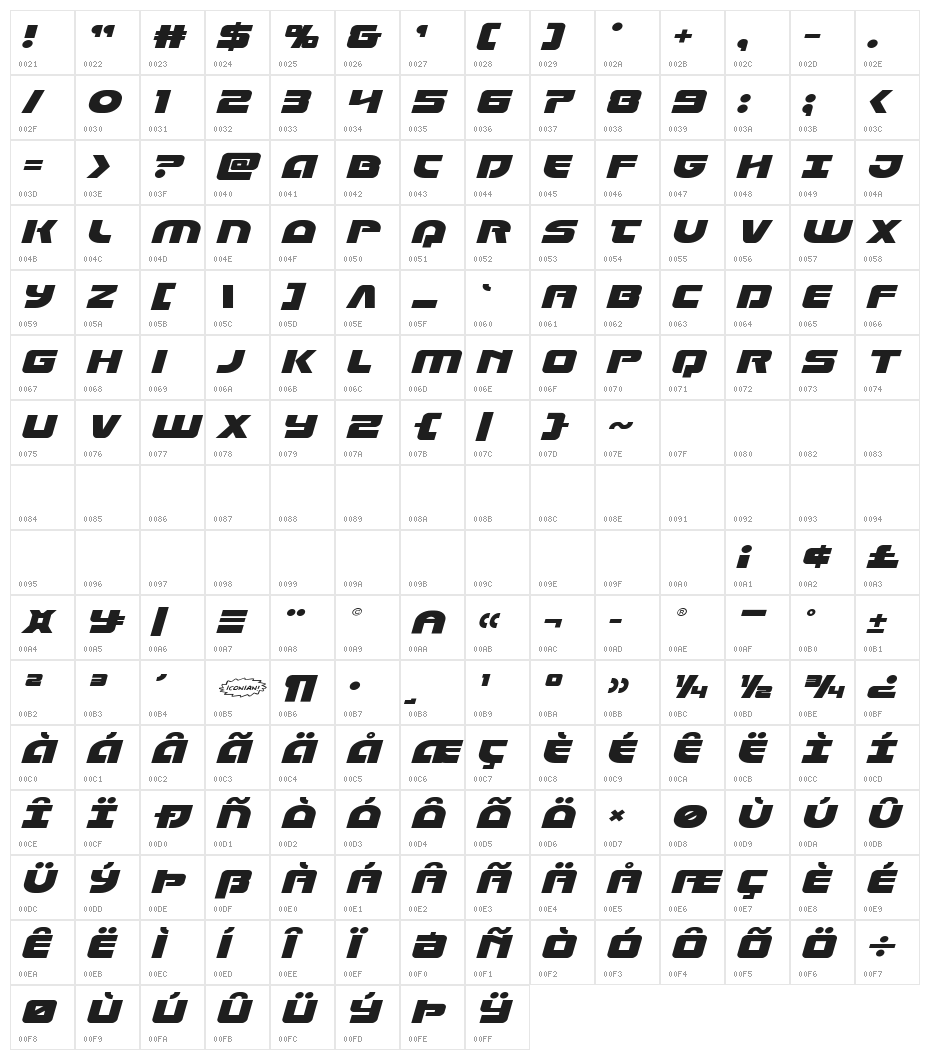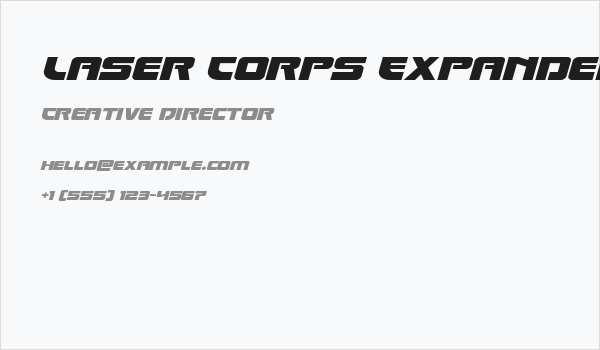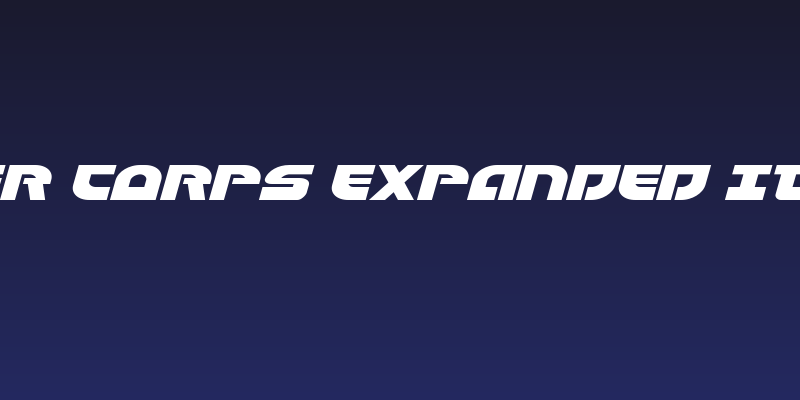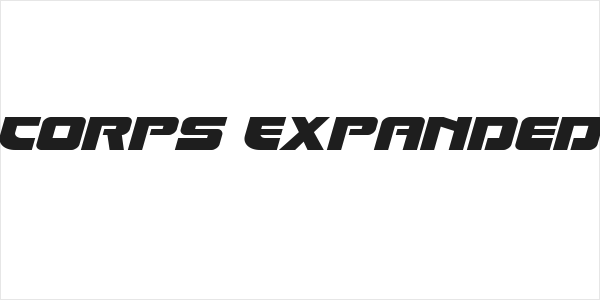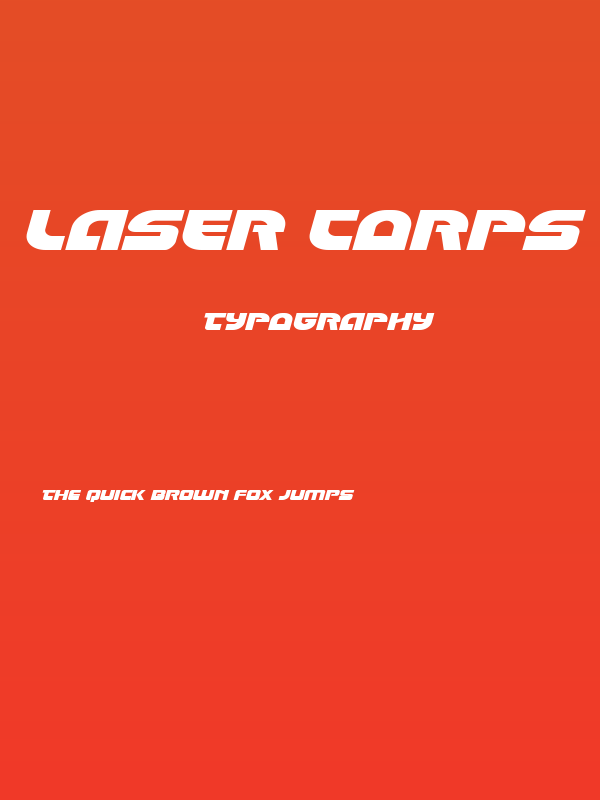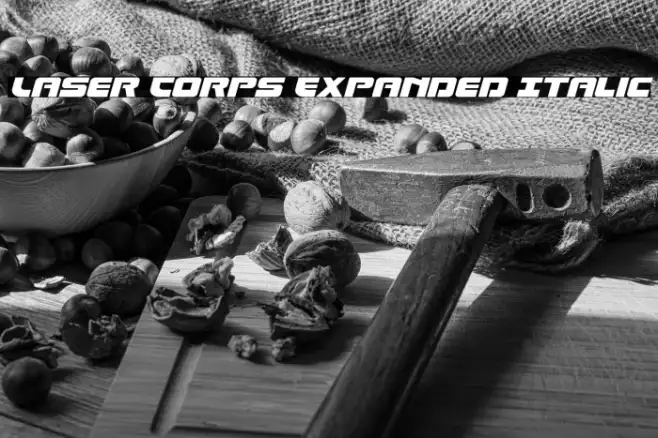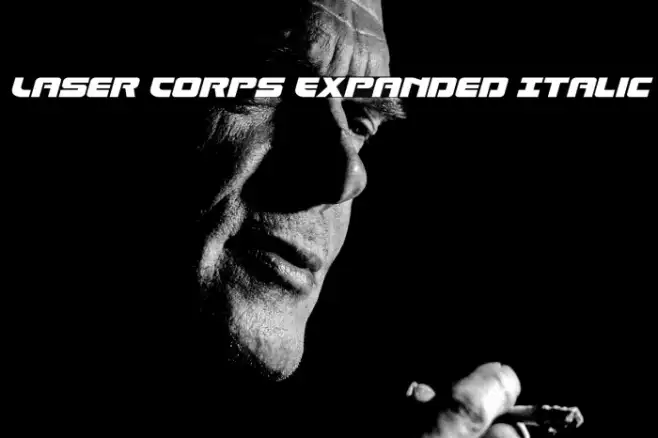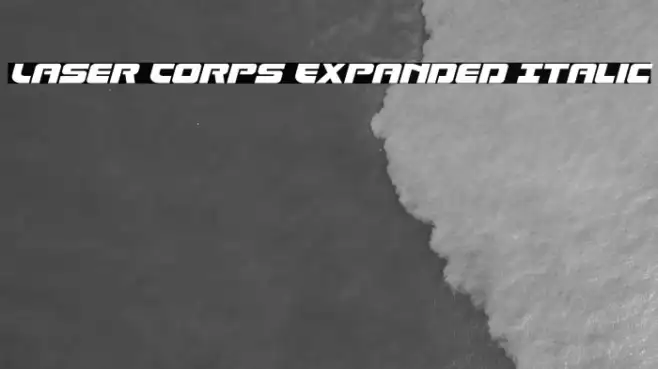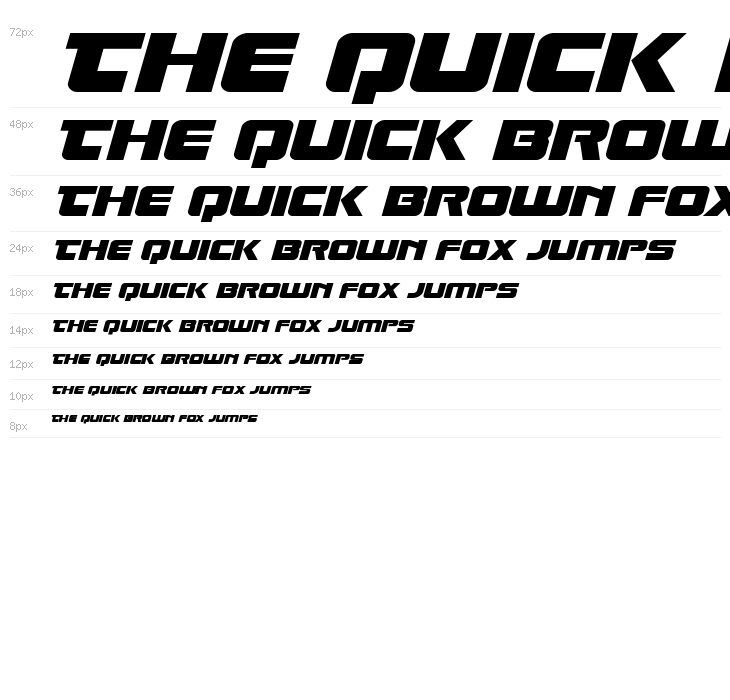
Laser Corps Expanded Italic Font
Laser Corps Expanded Italic Description
This font features a futuristic and bold design with a distinct italic slant, giving it a dynamic and forward-moving appearance. The characters are expanded, providing a wide stance that enhances readability and impact. The geometric shapes and sharp angles contribute to a modern and tech-inspired aesthetic, making it suitable for projects that require a strong and assertive visual presence. The uniform stroke width and lack of contrast emphasize its boldness, while the expanded width ensures that each character stands out distinctly. This font is ideal for creating eye-catching headlines, logos, and branding materials that demand attention.
| Proposed Projects | Ideal for technology branding, sci-fi movie posters, video game titles, and futuristic event promotions. |